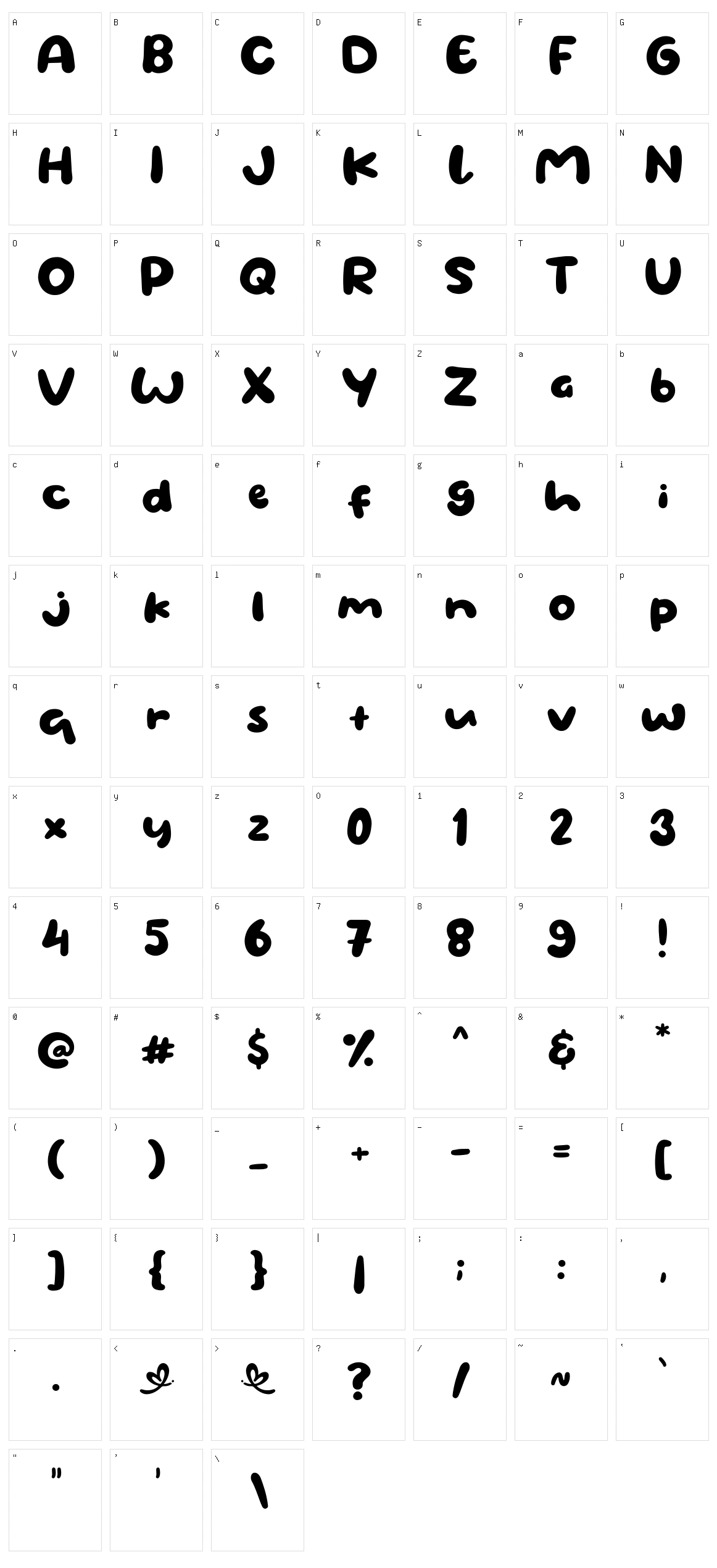
The free font Like Eat is carefully designed by Khurasan, showcasing a thoughtful balance of creativity and usability and falls under the Cartoon font style. When you download the ZIP file, it contains only 514.56 KB of font files, making it lightweight and quick to download. Please review the license details below to understand permitted usage and distribution rights. If license information is not available, we recommend using this font for personal projects only or contacting the author directly for commercial usage permissions.